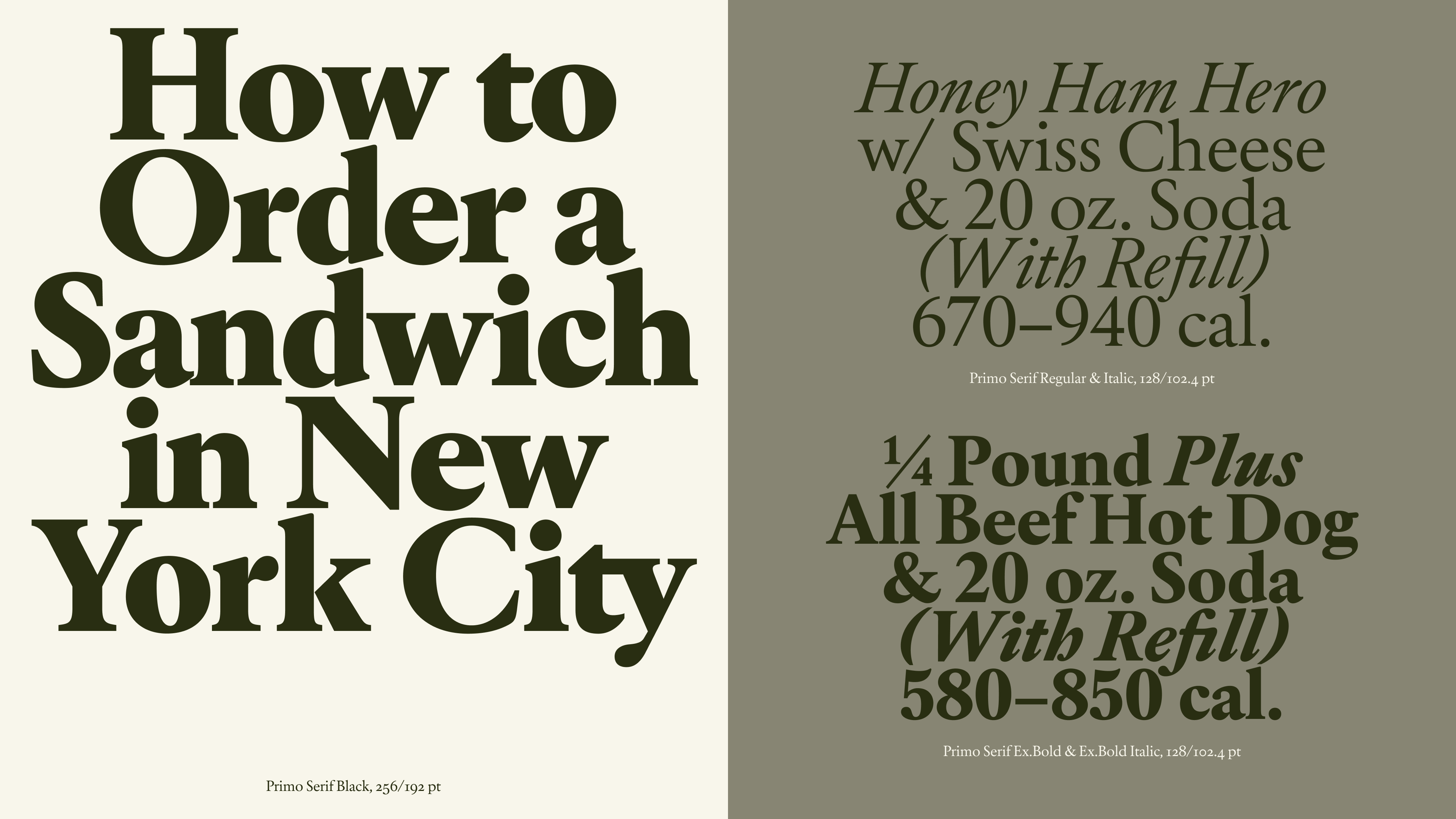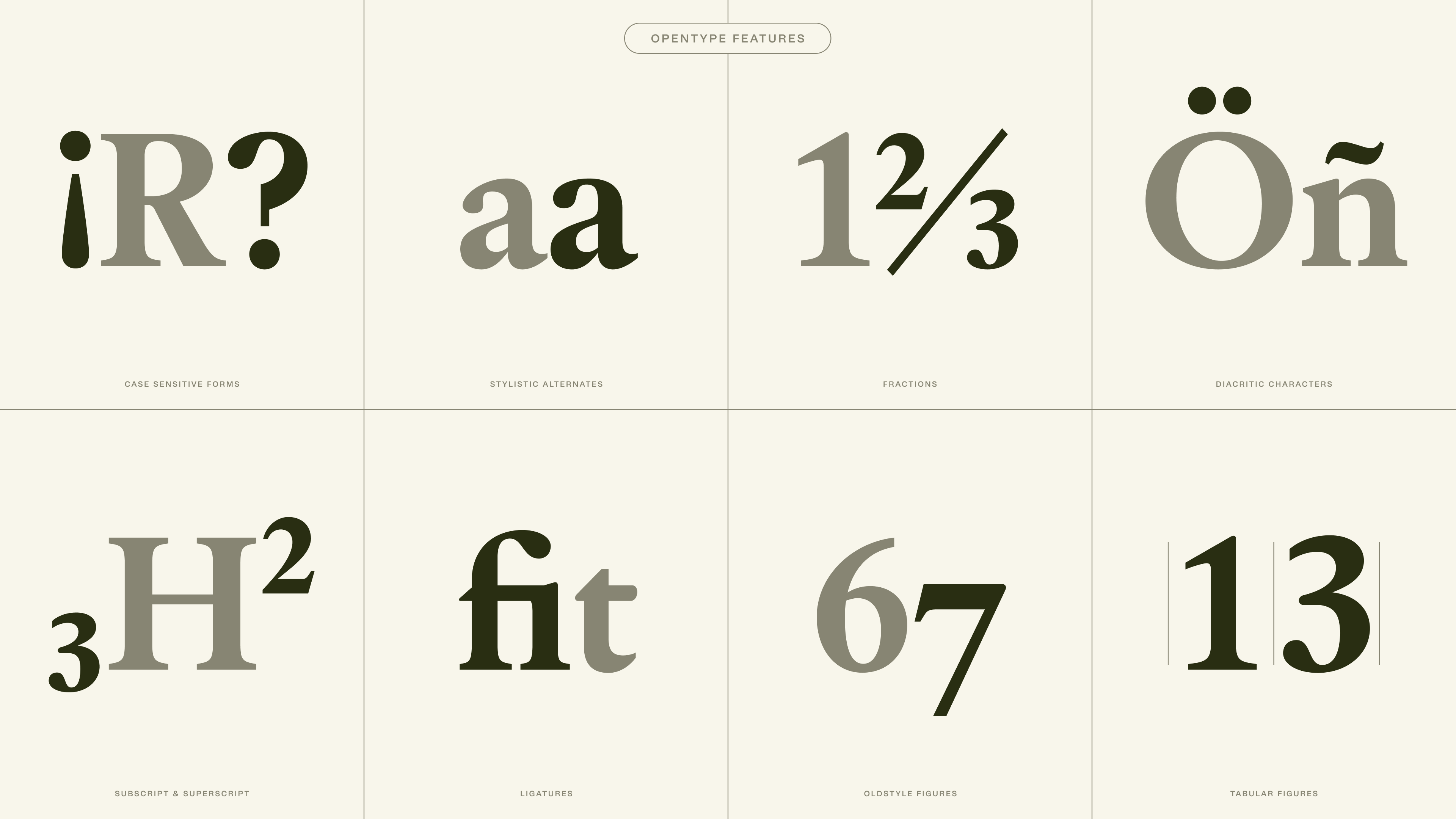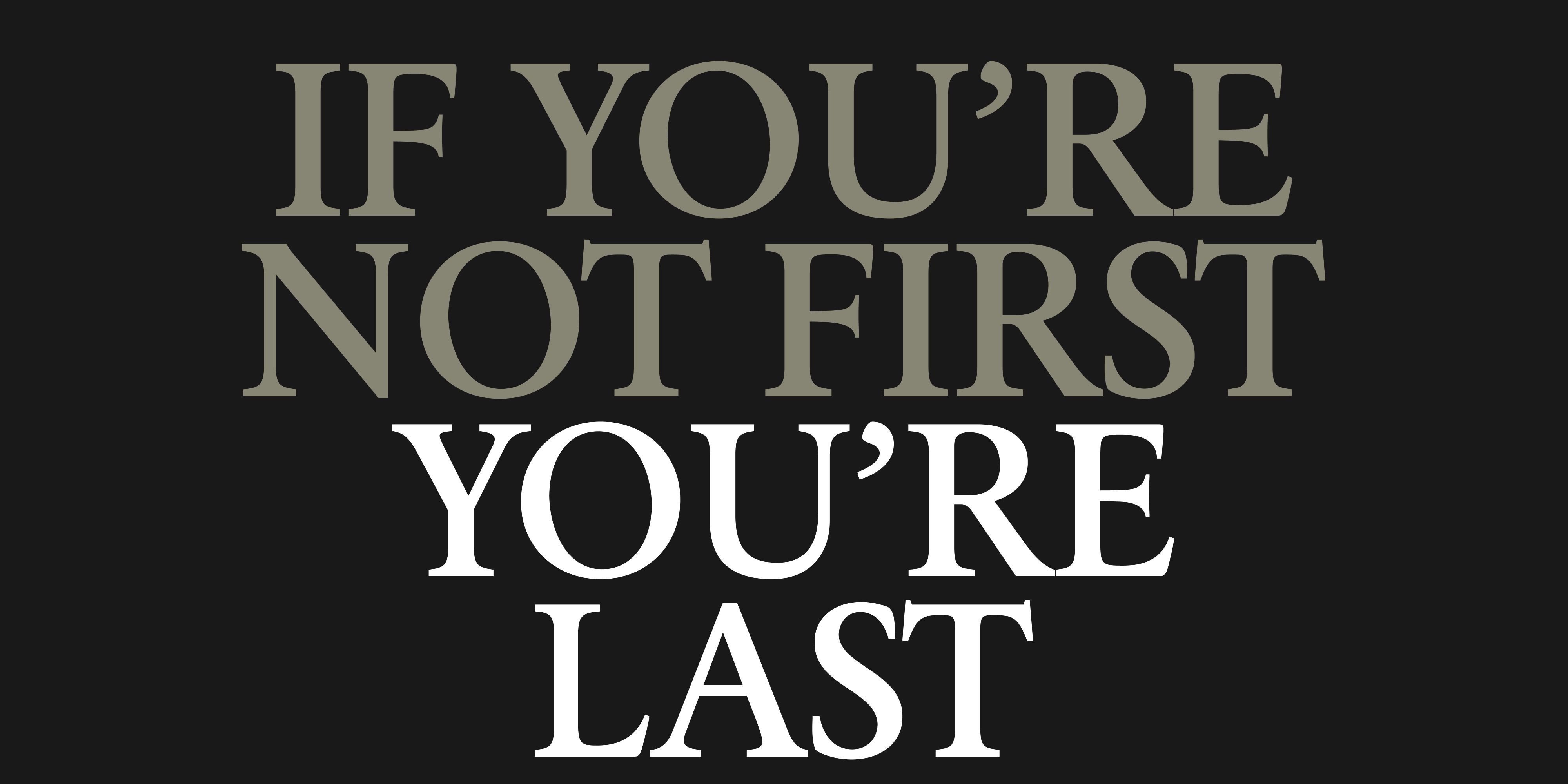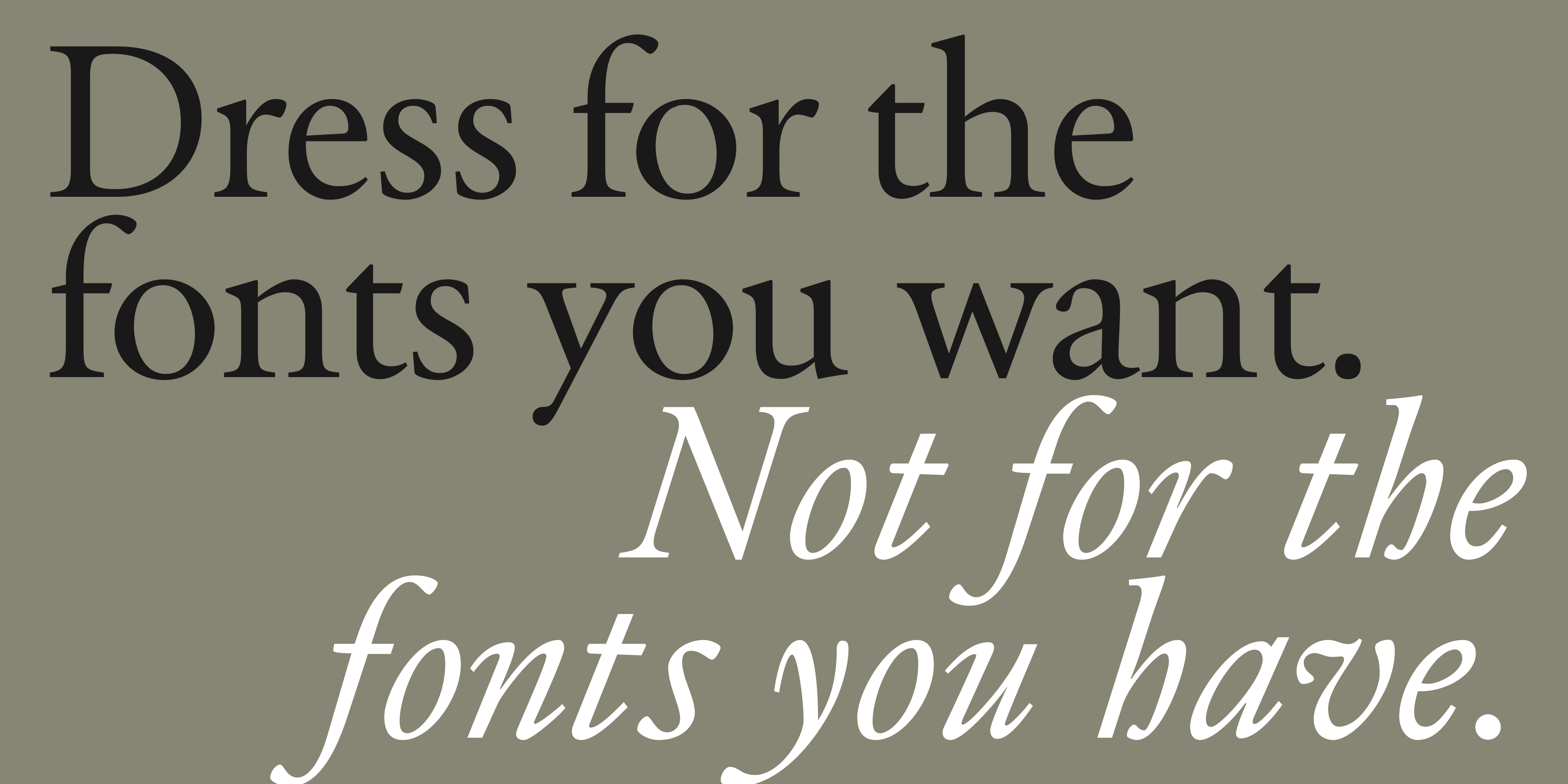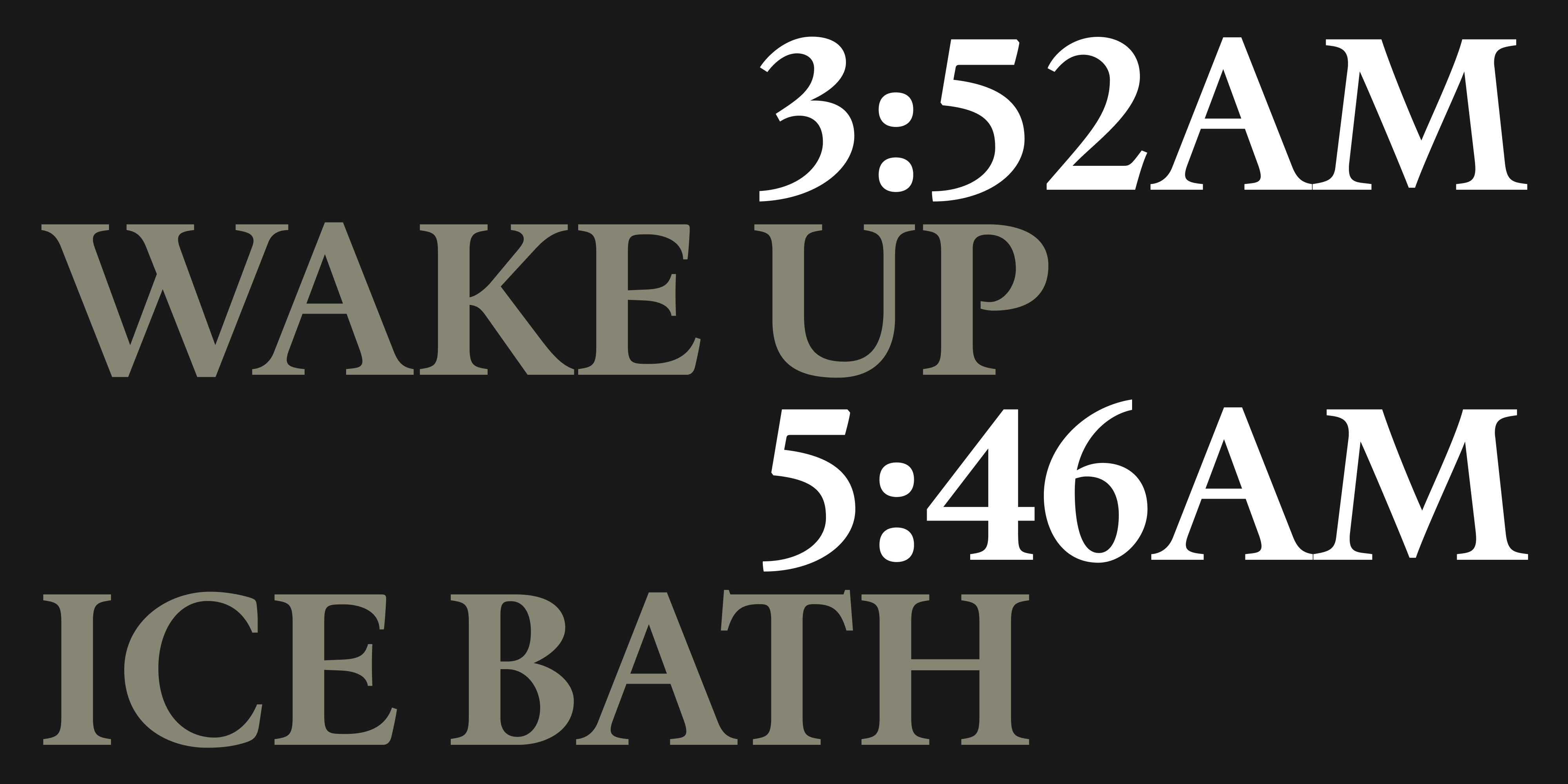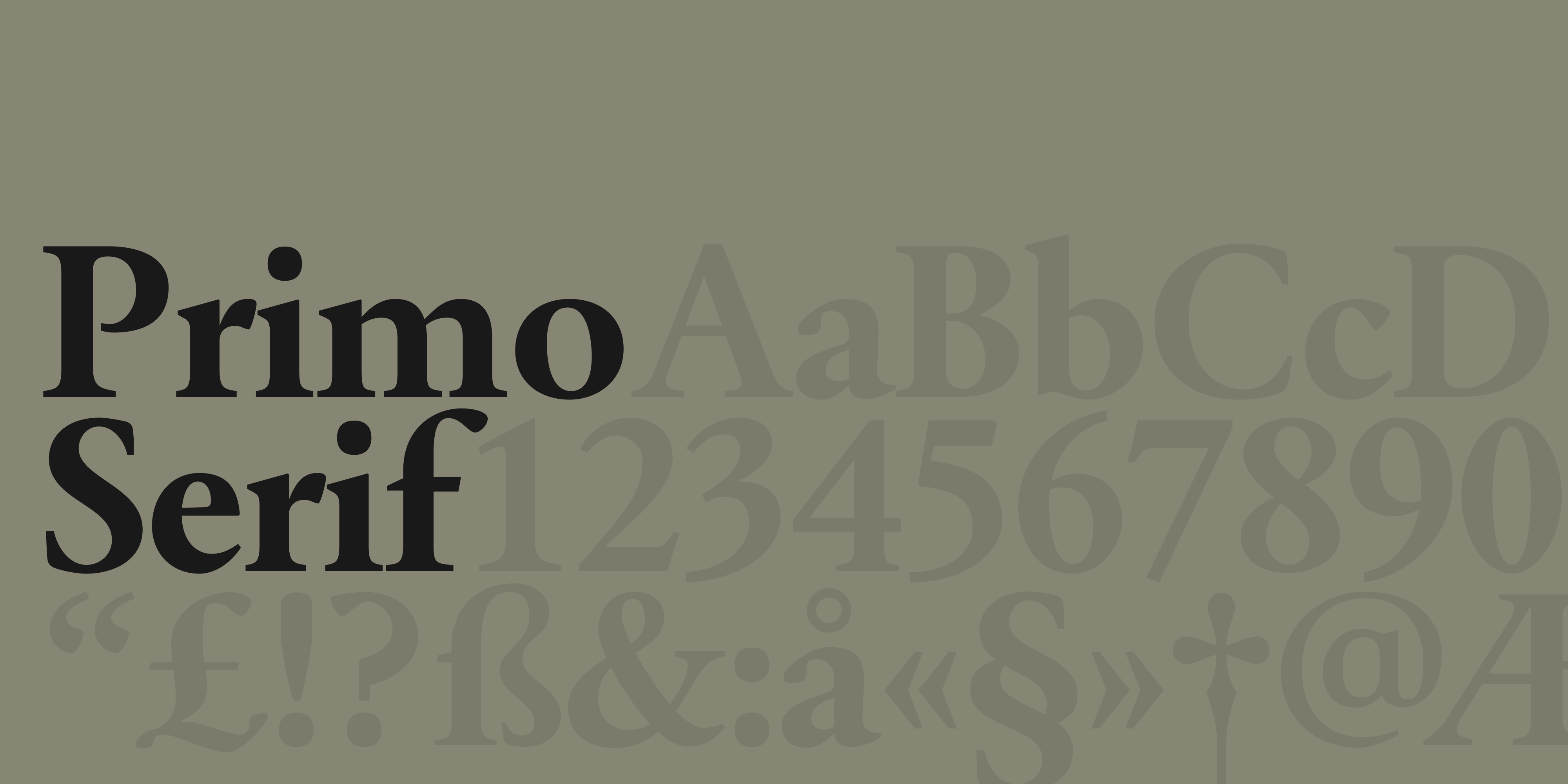
Primo Serif
Designer Jonas Hecksher
A classical typeface, Primo Serif was re-drawn from an old 16th century book about oil lamps. Each glyph was scanned and digitally optimized to bring it into the modern day world. A classic Garamond style, it is an elegant typeface suited to headers as well as body text. Originally published in 2000 and republished in 2025